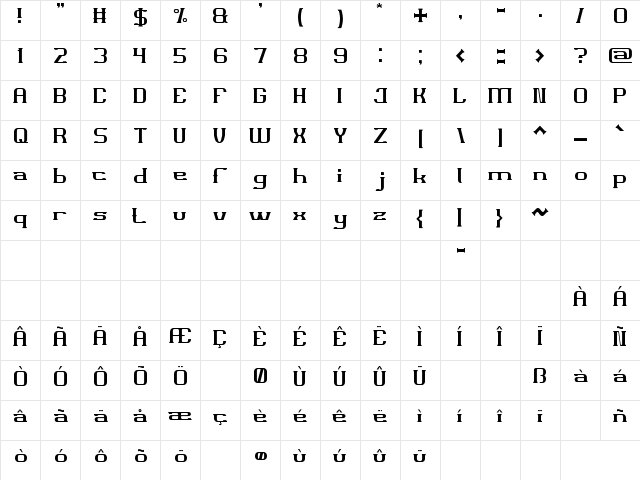
Wajah mu Malaikat Regular
Design Context for Wajah mu Malaikat Typeface
Wajah mu Malaikat takes a measured approach to typography — its balanced proportions and neutral character make it a reliable workhorse for both digital and print work.